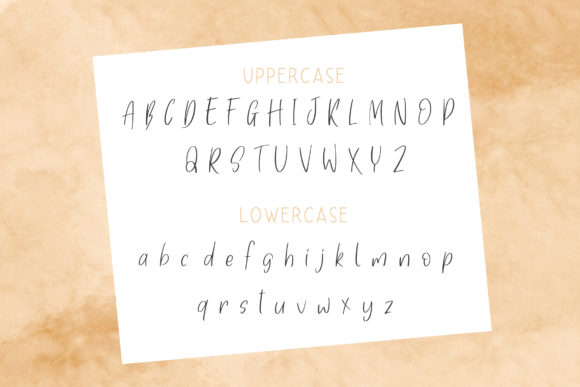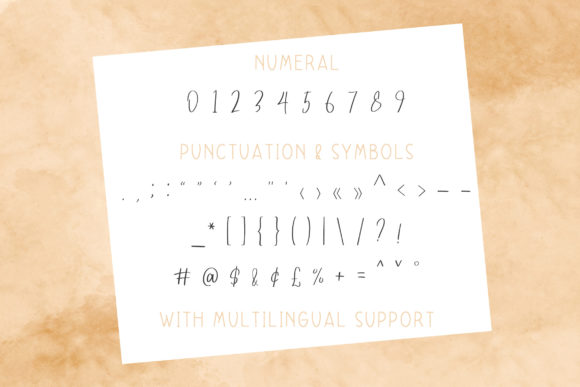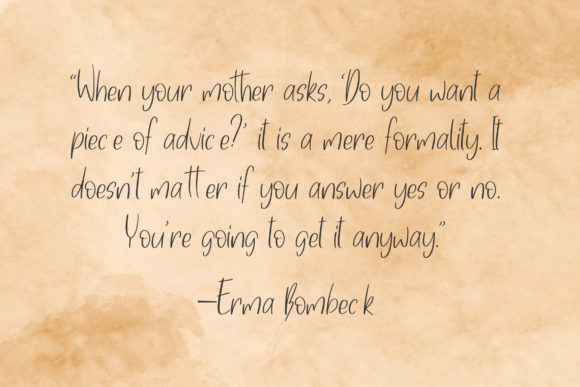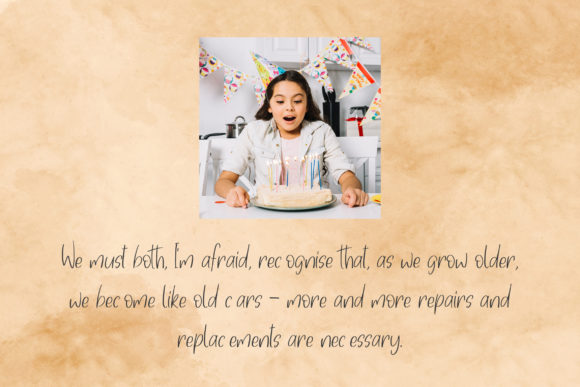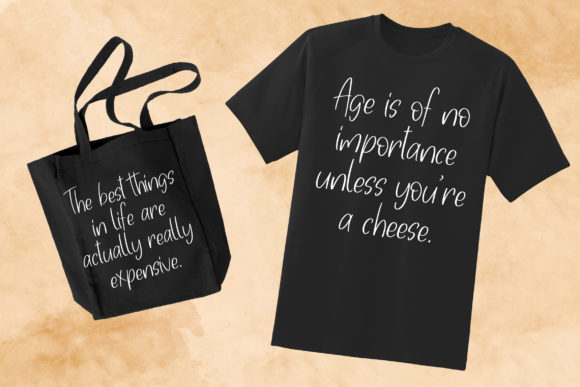
Introduction to Skiny Vibes Font
Skinny Vibes is a thin lettered handwritten font that can be used for all chalkboard quotes or teaching material.
Its authentic look and feel will add a personal and realistic feel to your designs .